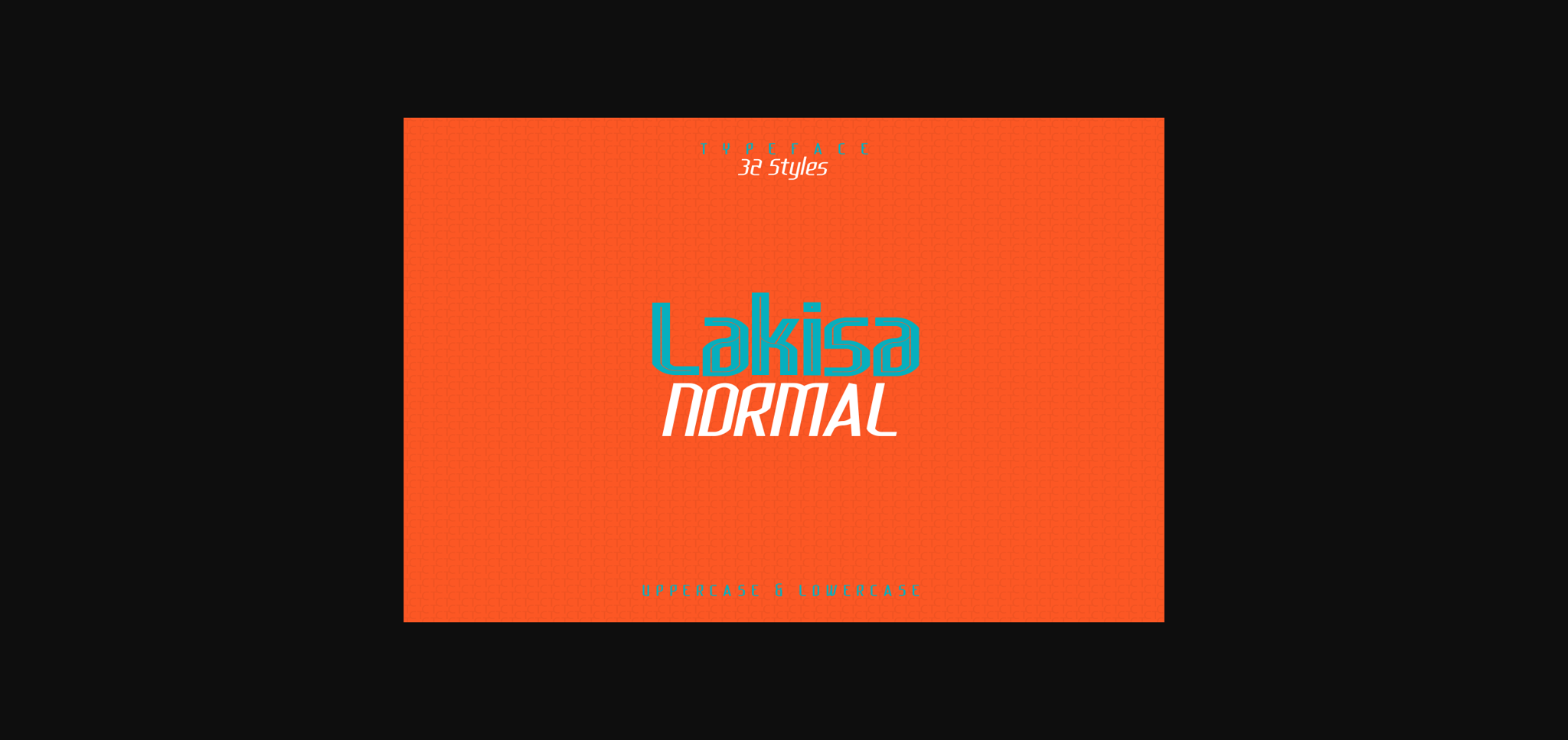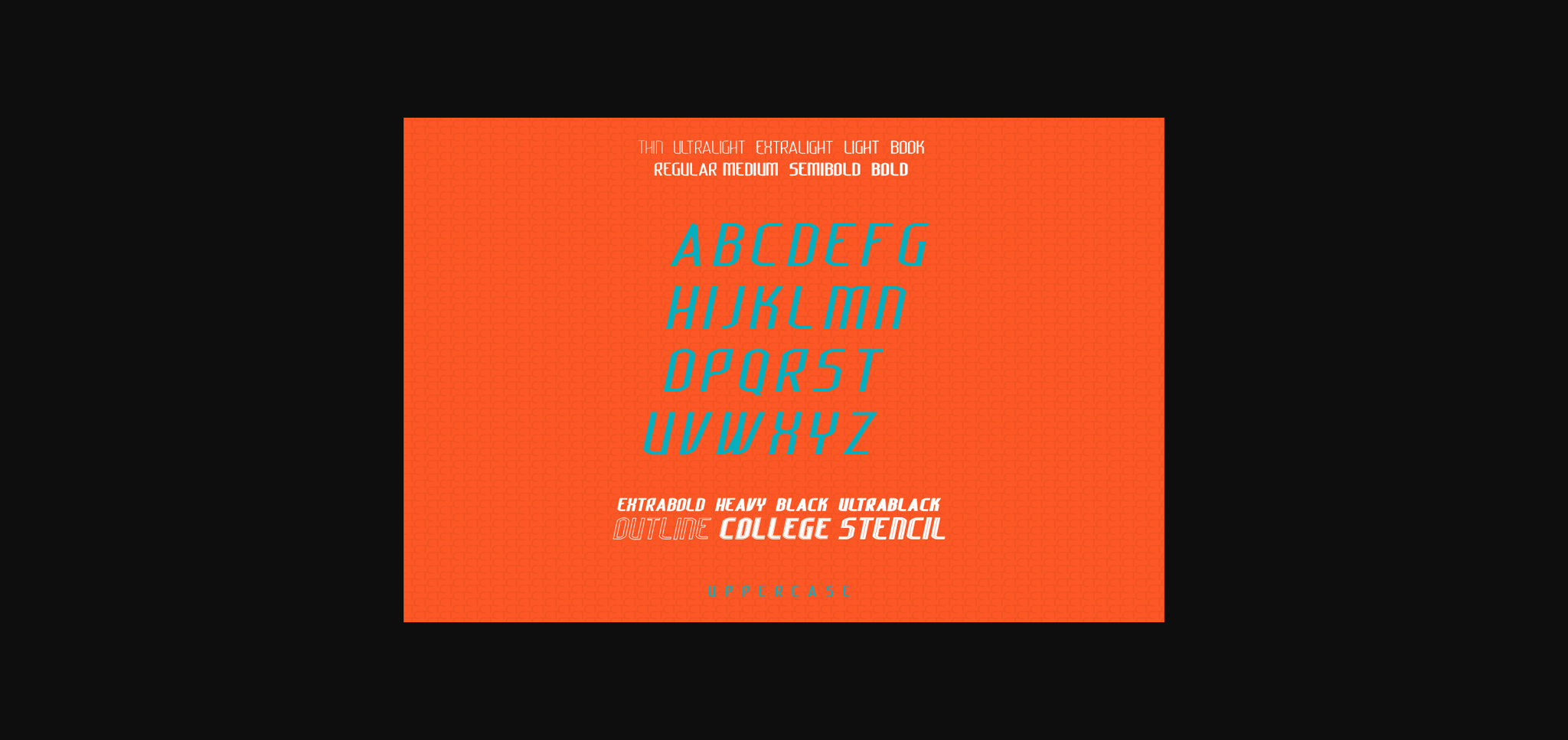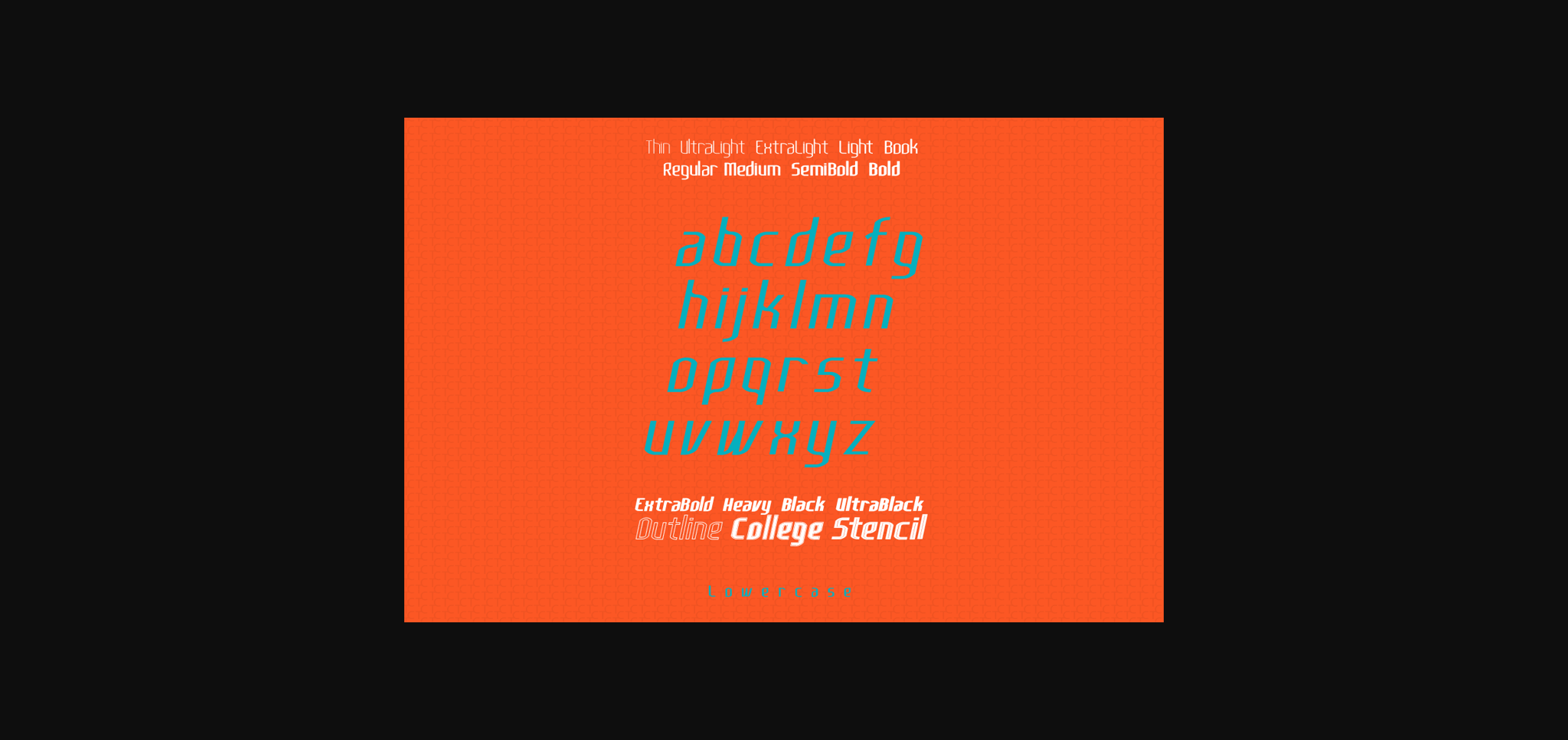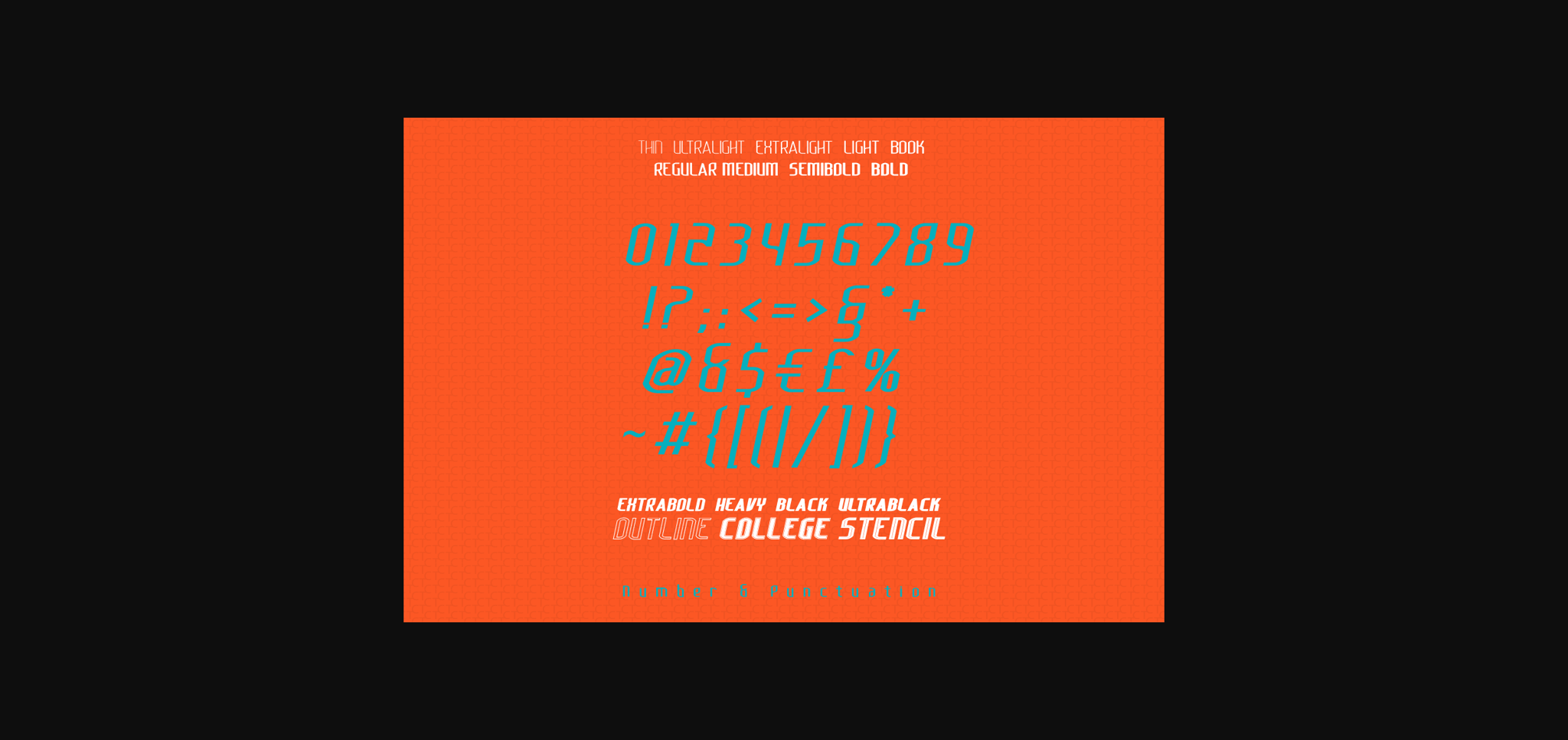
Lakisa Font
About Lakisa Font
Lakisa is a gorgeous sans serif with a modern and futuristic feel! With its neat and balanced arrangement of letters, this typeface will look outstanding in both formal and non-formal designs.